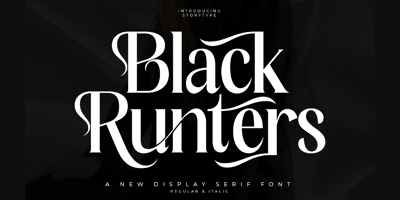
Black Runters Font Family was designed by Heru Utama Putra and published by Letterena Studios. Black Runters contains 2 styles and family package options. Black Runters is the epitome of modern luxury and elegance, our exquisite serif font is a true masterpiece. Its intricate details and clean lines create a refined and sophisticated look, while its subtle curves and serifs add a touch of warmth and personality. Perfect for high-end branding, editorial design, and beyond.Keep in mind that the font is PUA encoded, meaning that you can access all delightful glyphs and swashes effortlessly.